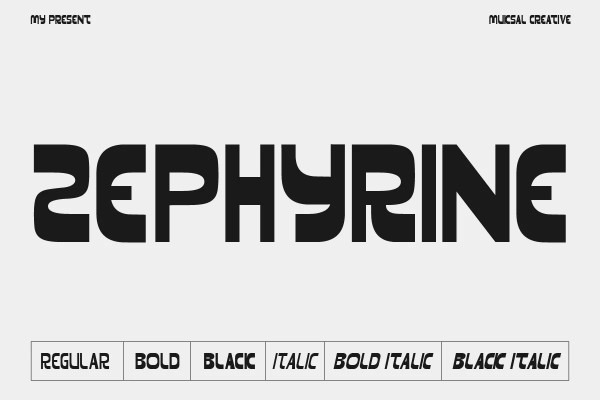
Zephyrine Font
Zephyrine Font is modern family of Display fonts. Zephyrine has 6 families font, starting from the small Regular and Regular Italic to the largest black and Black Italic. This typeface is versatile and can be used successfully in magazines, posters, branding, websites, etc.